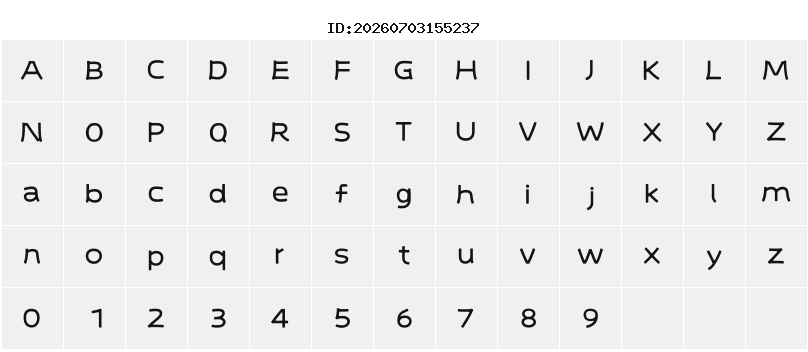
370-上首百家体 Preview
• Font Name: 370-上首百家体
• Font ID: 370-SSBaiJiaTi:Version 4.00
• Full Font Name: 370-上首百家体
• Version: Version 4.00 November 25, 2024
• PostScript Name: 370-SSBaiJiaTi
• Character Count: 7567
• Manufacturer: 上首造字
About 370-上首百家体.ttf
370-上首百家体.ttf is a modern, elegant sans-serif font designed for ultimate readability and visual harmony. Perfect for branding, headlines, web design, and print materials.